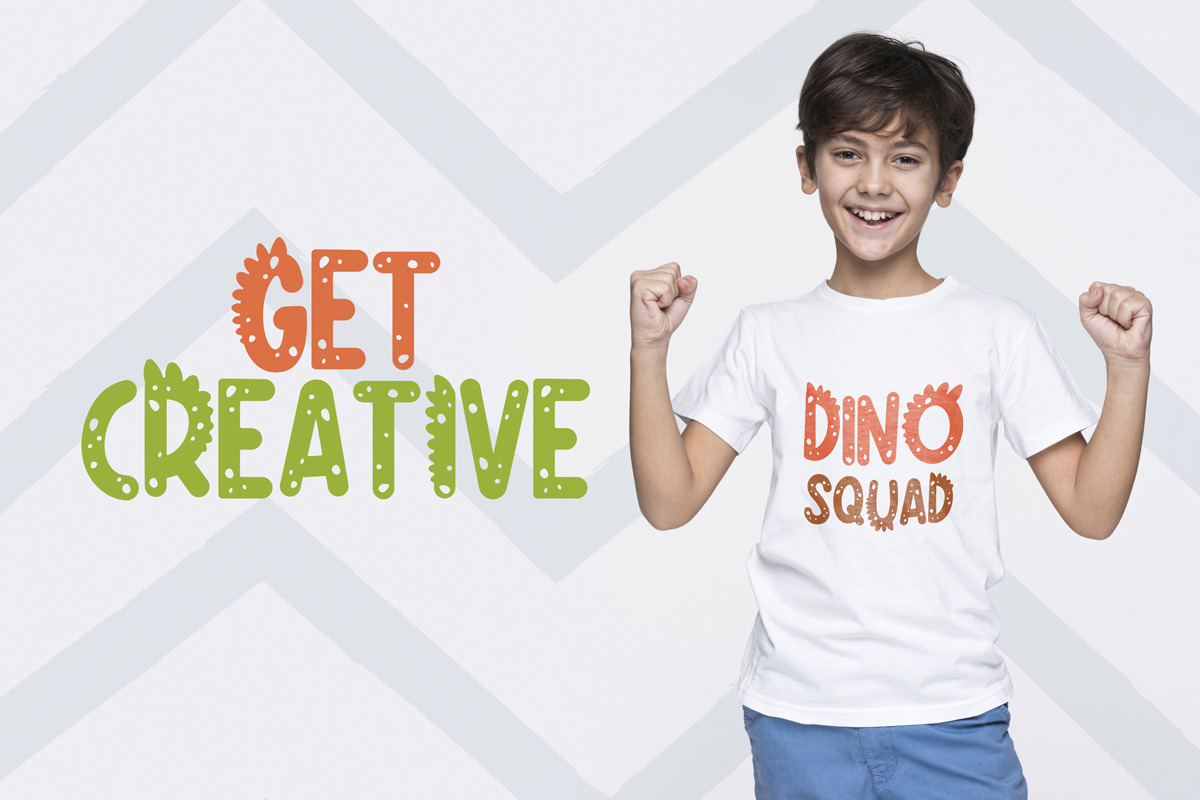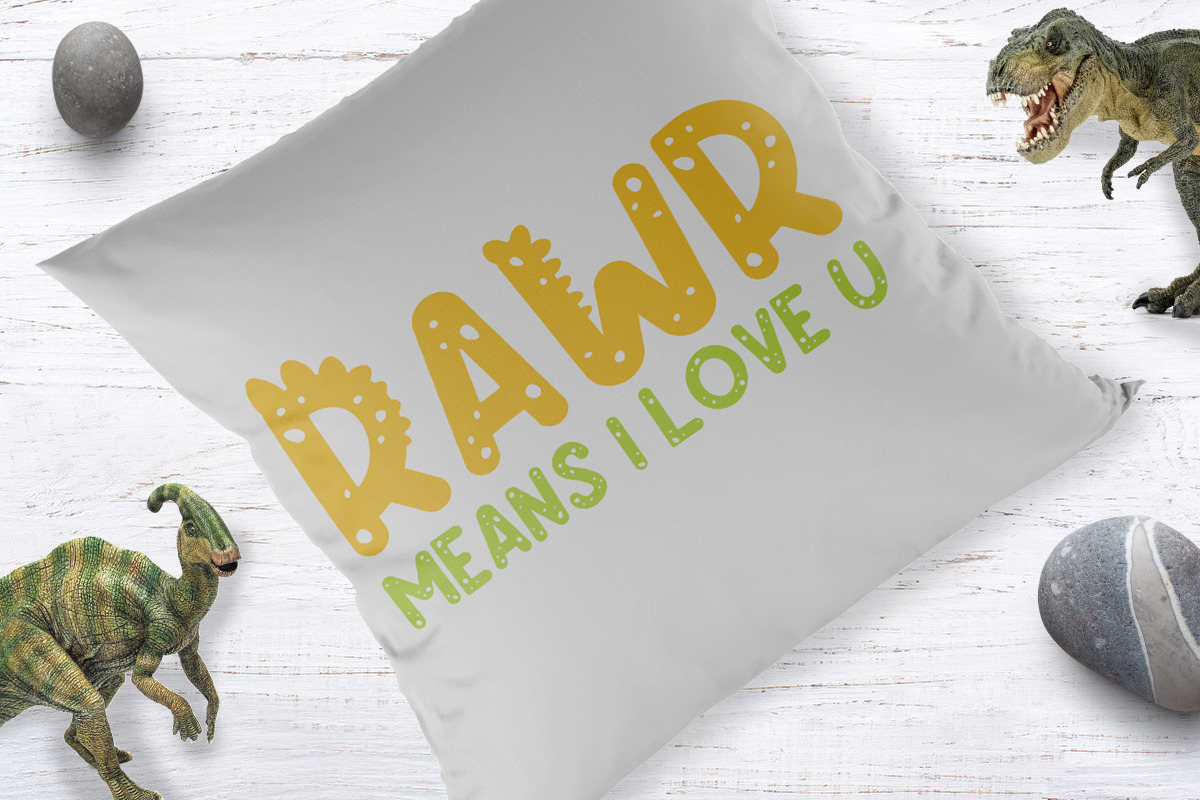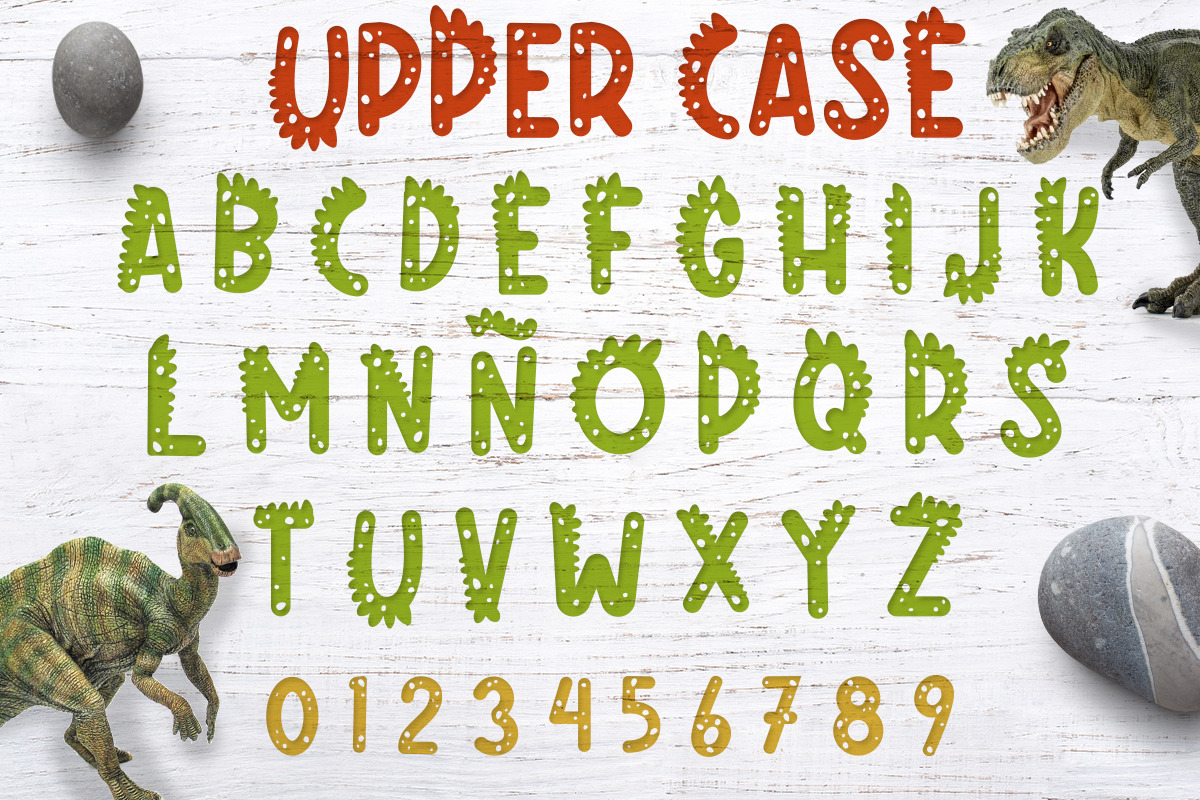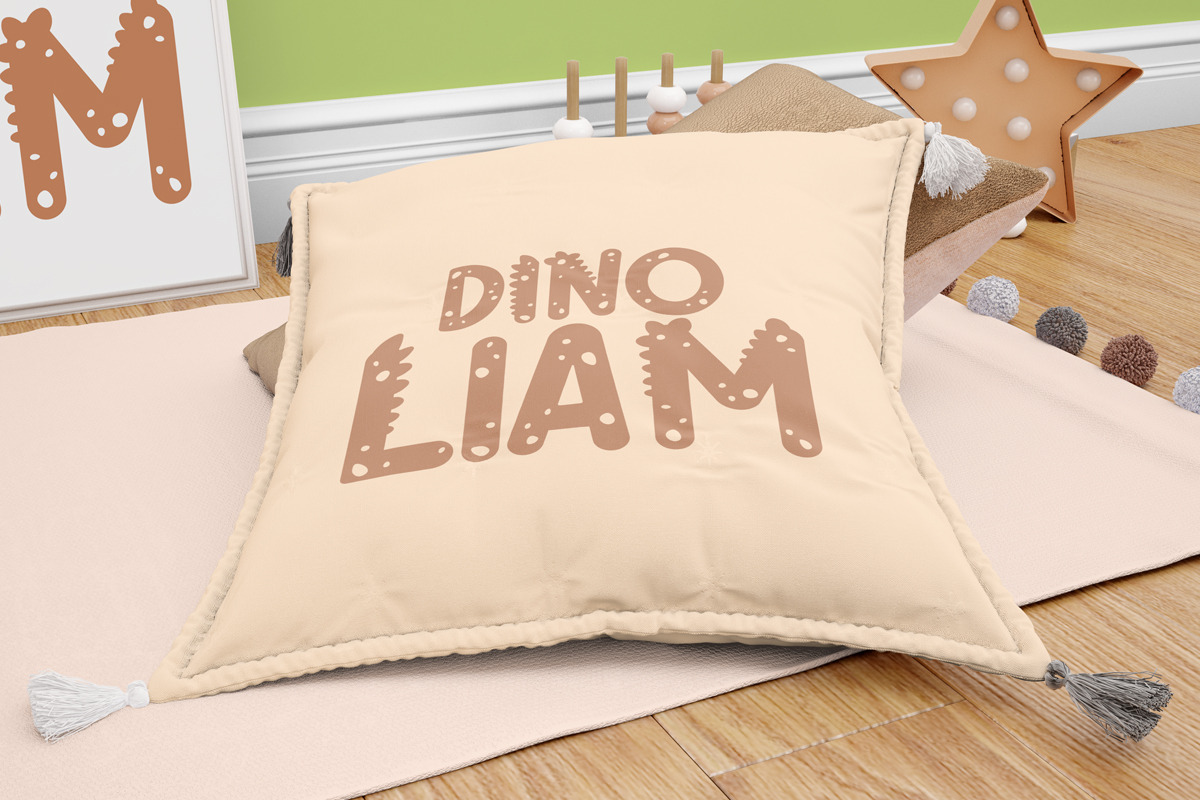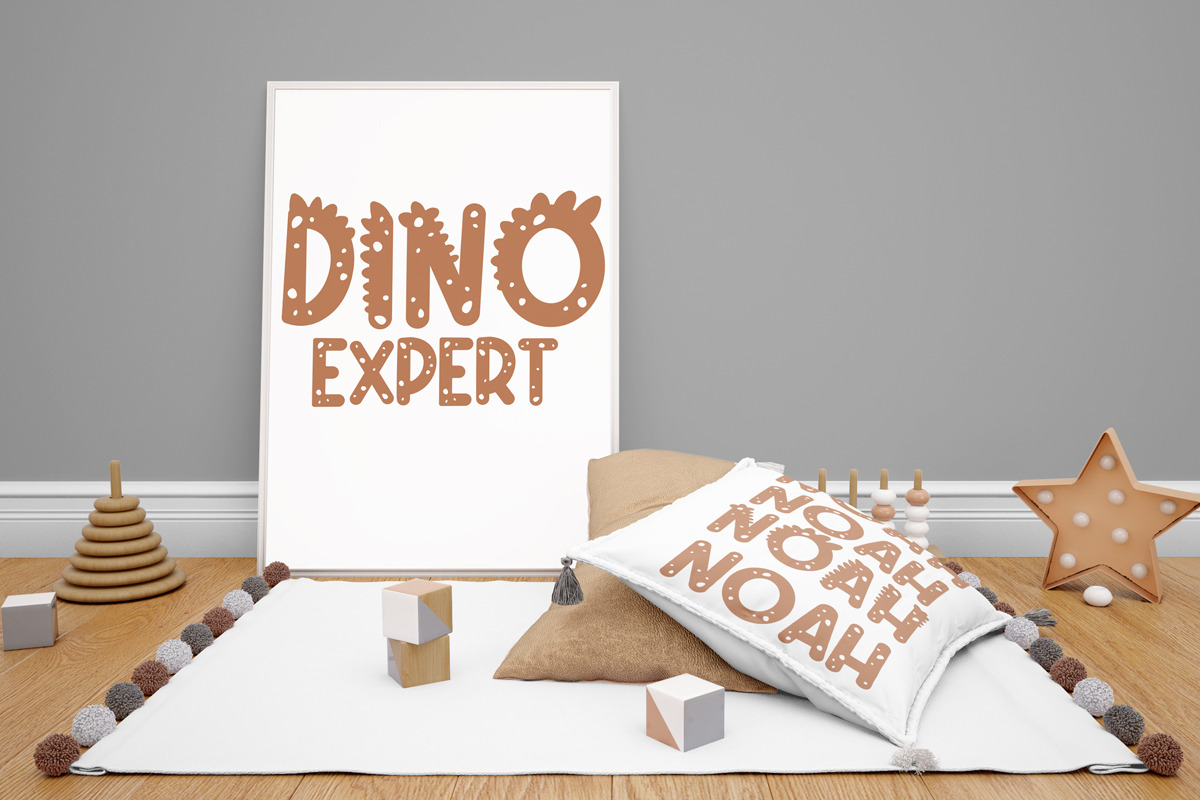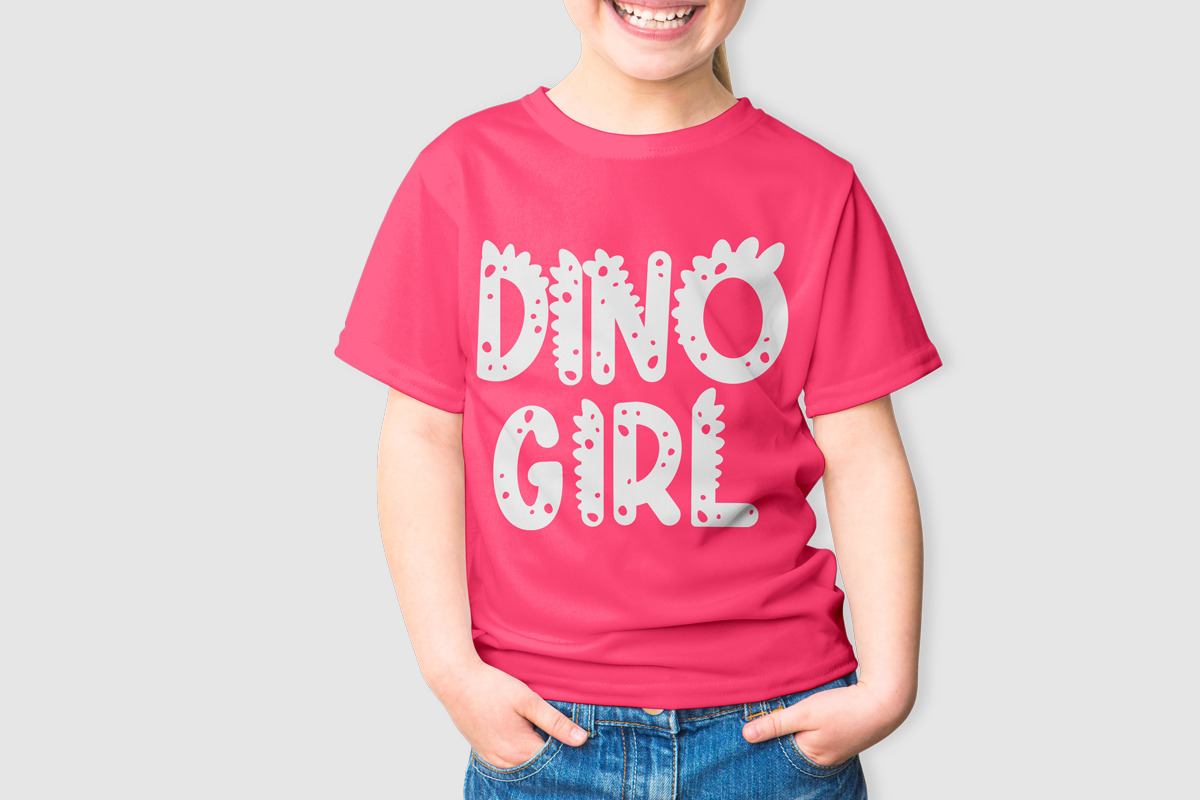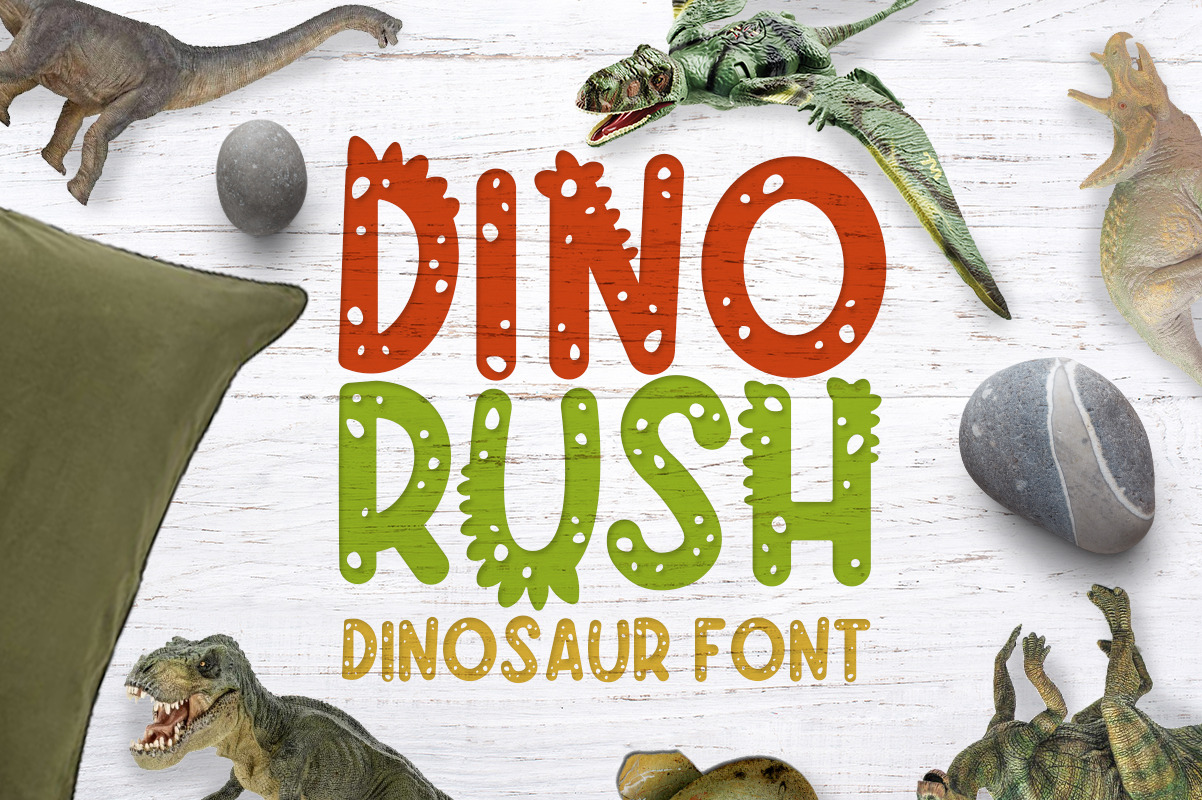
Dino rush - Dinosaur font
Hey guys, today I present you with the Dino rush typeface. This fun childish font will give your projects the playful and youthful touch you desire. This beautiful product is perfect to give kid related creations that dinasour feel.